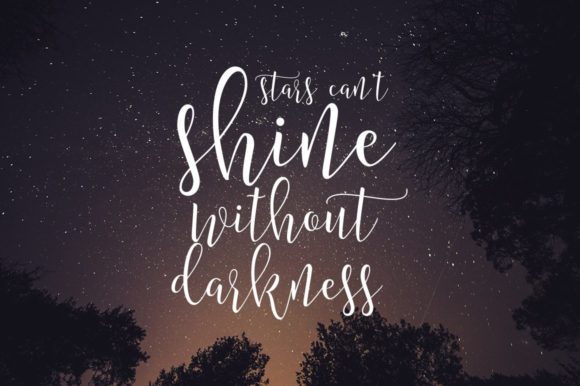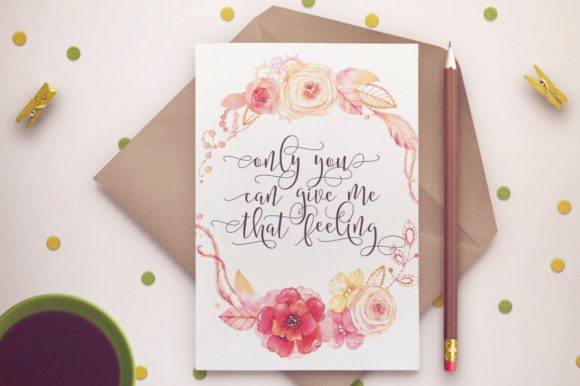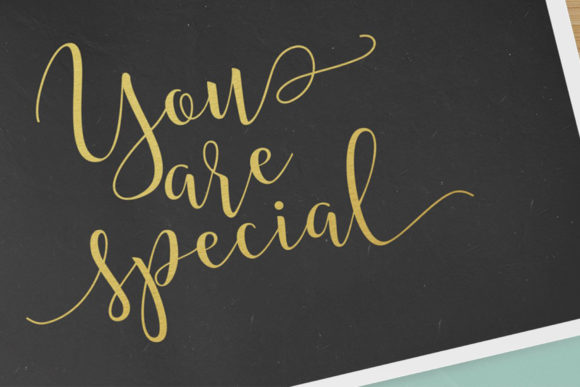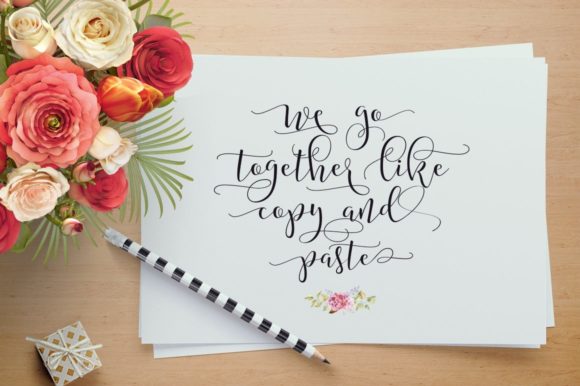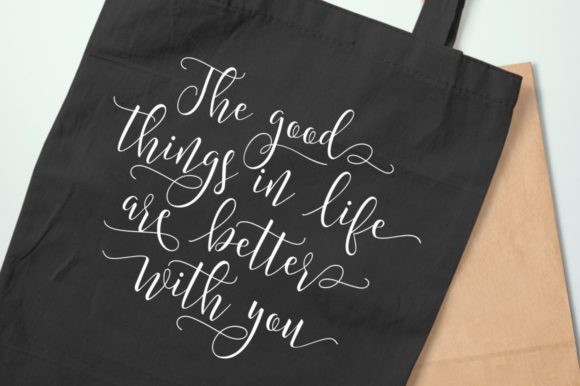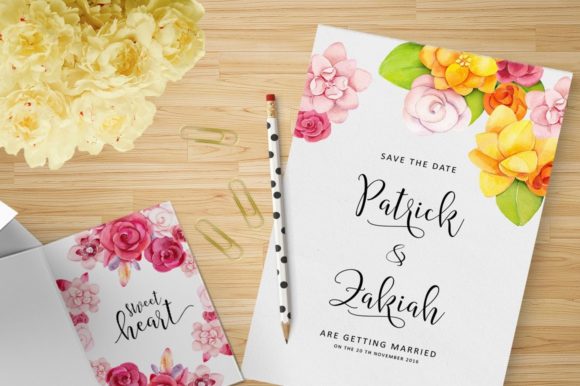
Unlock the Beauty of Amberlight Font
As a designer, have you ever stumbled upon a blank page, staring back at you with a blank slate, and thought, “I need something special to make this project shine”? You’re not alone. We’ve all been there, searching for that perfect combination of style and sophistication to elevate our designs. That’s where the Amberlight Font comes in – a lovely and calligraphic font that exudes elegance and class.
This beautifully crafted font is designed to bring a touch of refinement to your projects, whether it’s a wedding invitation, a branding logo, or a heartfelt letter. With its PUA encoding, accessing all the glyphs and swashes is a breeze, giving you the freedom to get creative and experiment with different looks. The Amberlight Font is a valuable addition to any designer’s toolkit, offering a unique and refreshing perspective that’s sure to impress.
Amberlight Font Key Features
- Unique Characteristics: Hand-drawn, elegant, and modern script font with intricate details and subtle texture, perfect for creating a warm and inviting atmosphere in designs
- Character Set: Includes over 400 characters, including uppercase and lowercase letters, numbers, punctuation marks, and special characters
- Font Style: Script, modern, elegant, and handwritten
Amberlight Font Review
As a designer, I’ve had the chance to work with a wide range of fonts, and Amberlight is definitely one of the more interesting ones I’ve come across. ✨ The unique blend of modern and vintage elements gives it a distinct character that’s perfect for projects that need a touch of elegance.
One of the standout features of Amberlight is its versatility. ✨ It’s suitable for a wide range of applications, from headings and titles to body text. The font also comes in a range of weights and styles, making it easy to customize to fit your design needs.
- Unique blend of modern and vintage elements
- Highly versatile, suitable for a wide range of applications
- Range of weights and styles available
- Easy to read, even at small font sizes
- May not be suitable for projects that require a more minimalist aesthetic
- Some users may find the font too ornate or distracting
- Not ideal for text-heavy projects, as it can be a bit too decorative
Overall, I’d say Amberlight is a solid choice for designers looking for a unique and elegant font. While it may have some limitations, its versatility and character make it a great addition to any design arsenal.
Tips for Getting the Most Out of Amberlight Font
For optimal results, use the Amberlight font in combination with other elegant and minimalist design elements. Experiment with different font sizes, colors, and styles to create a unique and captivating visual identity.
The Amberlight font is ideal for:
- Editorial and publishing design.
- Artistic and creative projects.
Alternatives to Amberlight Font
Playfair Display is a luxurious, high-end serif font perfect for creating elegant and sophisticated designs. It’s ideal for use in branding, advertising, and editorial projects where a touch of sophistication is needed. Compared to Amberlight Font, Playfair Display has a more refined and elegant feel, making it a better choice for high-end designs.
Great Vibes is a modern, elegant script font that’s perfect for creating a sense of luxury and sophistication. It’s ideal for use in branding, packaging, and advertising projects where a touch of elegance is needed. Compared to Amberlight Font, Great Vibes has a more fluid and dynamic feel, making it a better choice for designs that require a sense of movement and energy.
Pacifico is a beautiful, elegant script font that’s perfect for creating a sense of calm and serenity. It’s ideal for use in branding, packaging, and advertising projects where a touch of elegance is needed. Compared to Amberlight Font, Pacifico has a more relaxed and casual feel, making it a better choice for designs that require a sense of calm and sophistication.